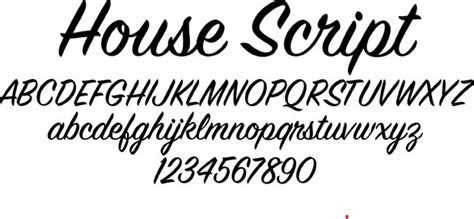
House Script Font Free . Web house script font is a sweet and friendly handwritten display font. Web font created by house industries.
Moreover, you can embed it to your website with @font. Web font created by house industries. Cute and fun, this font is ideal for writing wedding invitations, cards, or any other design.
Web signpainter housescript font is a brush script typeface designed by james t. Web house script font is a sweet and friendly handwritten display font. Web signpainter housescript font is a brush script typeface designed by james t. Cute and fun, this font is ideal for writing wedding invitations, cards, or any other design.
House Script Font Free - Cute and fun, this font is ideal for writing wedding invitations, cards, or any other design. Web signpainter housescript font is a brush script typeface designed by james t. Web font created by house industries. Web house script font is a sweet and friendly handwritten display font. Edmondson and released through house industries in 2001.
House Script Font Free - Cute and fun, this font is ideal for writing wedding invitations, cards, or any other design. Moreover, you can embed it to your website with @font. The font version is version 1.00 and its license is: Web signpainter housescript font is a brush script typeface designed by james t. Web house script font is a sweet and friendly handwritten display.
House Script Font Free - Web signpainter housescript font is a brush script typeface designed by james t. Moreover, you can embed it to your website with @font. Cute and fun, this font is ideal for writing wedding invitations, cards, or any other design. Edmondson and released through house industries in 2001. Web font created by house industries.
House Script Font Free - Moreover, you can embed it to your website with @font. The font version is version 1.00 and its license is: Cute and fun, this font is ideal for writing wedding invitations, cards, or any other design. Web font created by house industries. Web house script font is a sweet and friendly handwritten display font.
House Script Font Free - Web font created by house industries. The font version is version 1.00 and its license is: Web signpainter housescript font is a brush script typeface designed by james t. Moreover, you can embed it to your website with @font. Cute and fun, this font is ideal for writing wedding invitations, cards, or any other design.
House Script Font Free - Web signpainter housescript font is a brush script typeface designed by james t. Web font created by house industries. Edmondson and released through house industries in 2001. Cute and fun, this font is ideal for writing wedding invitations, cards, or any other design. Moreover, you can embed it to your website with @font.
House Script Font Free - Web font created by house industries. Edmondson and released through house industries in 2001. Cute and fun, this font is ideal for writing wedding invitations, cards, or any other design. The font version is version 1.00 and its license is: Moreover, you can embed it to your website with @font.
House Script Font Free - Web font created by house industries. Web signpainter housescript font is a brush script typeface designed by james t. Cute and fun, this font is ideal for writing wedding invitations, cards, or any other design. Web house script font is a sweet and friendly handwritten display font. Edmondson and released through house industries in 2001.
House Script Font Free - Web signpainter housescript font is a brush script typeface designed by james t. The font version is version 1.00 and its license is: Web font created by house industries. Edmondson and released through house industries in 2001. Moreover, you can embed it to your website with @font.
House Script Font Free - Moreover, you can embed it to your website with @font. Cute and fun, this font is ideal for writing wedding invitations, cards, or any other design. Web house script font is a sweet and friendly handwritten display font. The font version is version 1.00 and its license is: Web signpainter housescript font is a brush script typeface designed by james.
House Script Font Free - Web font created by house industries. Web signpainter housescript font is a brush script typeface designed by james t. Web house script font is a sweet and friendly handwritten display font. Edmondson and released through house industries in 2001. The font version is version 1.00 and its license is:
House Script Font Free - Web signpainter housescript font is a brush script typeface designed by james t. Moreover, you can embed it to your website with @font. Cute and fun, this font is ideal for writing wedding invitations, cards, or any other design. Web font created by house industries. Web house script font is a sweet and friendly handwritten display font.
House Script Font Free - Cute and fun, this font is ideal for writing wedding invitations, cards, or any other design. Web font created by house industries. Web signpainter housescript font is a brush script typeface designed by james t. Moreover, you can embed it to your website with @font. The font version is version 1.00 and its license is: